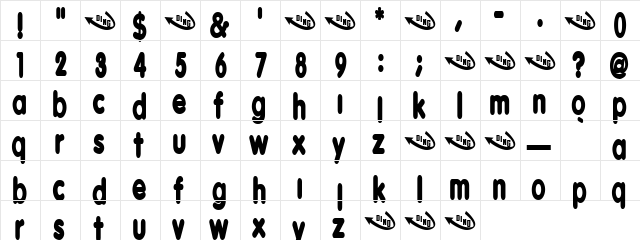
LonelyFrog Regular
Design Context for LonelyFrog Typeface
LonelyFrog is a composed and adaptable typeface that performs quietly and consistently across a wide range of design contexts.